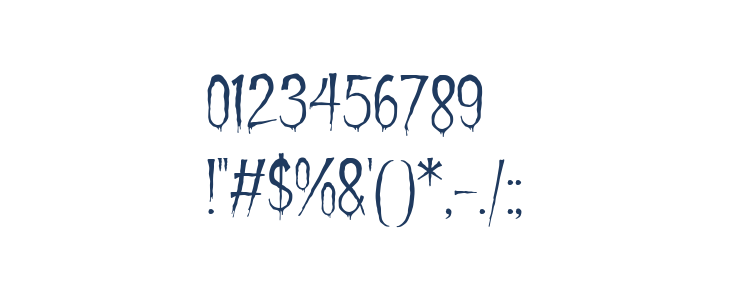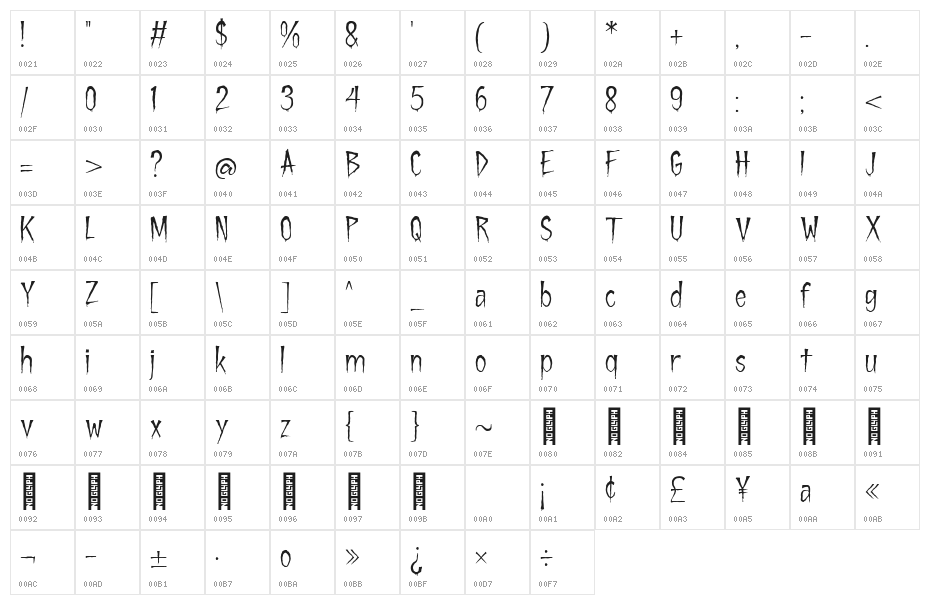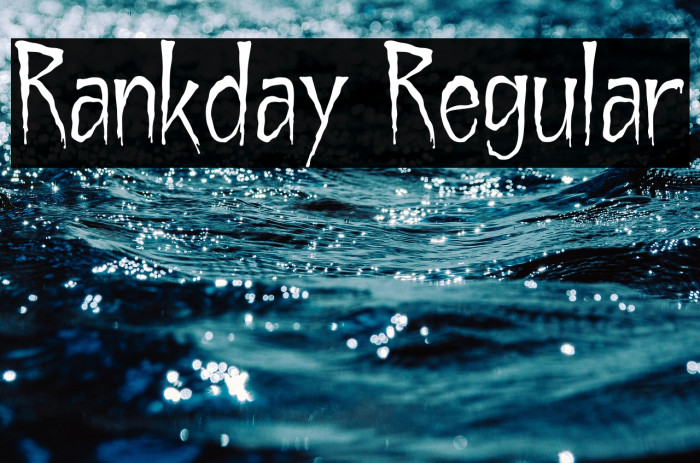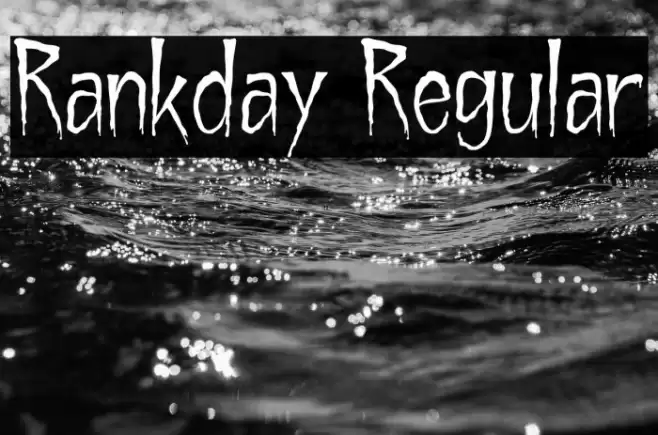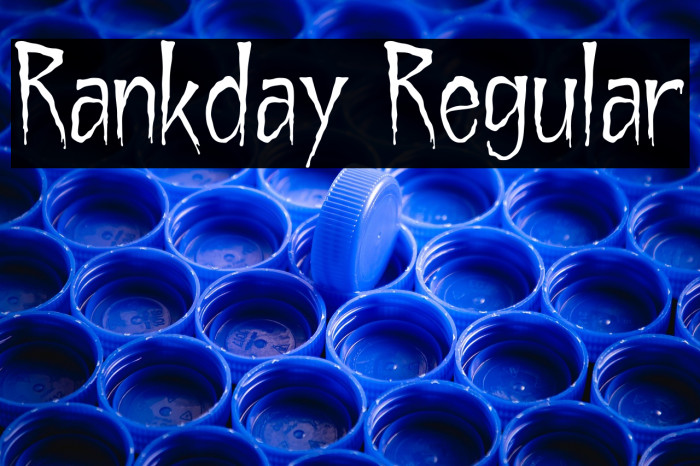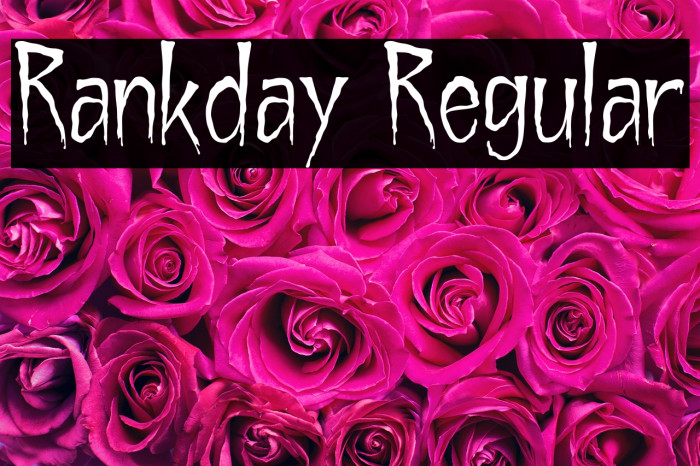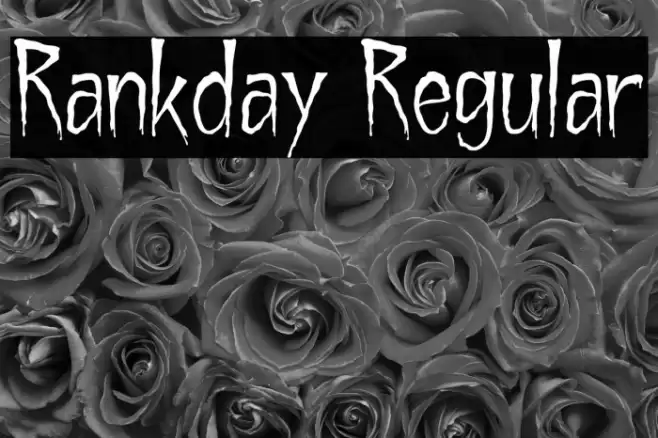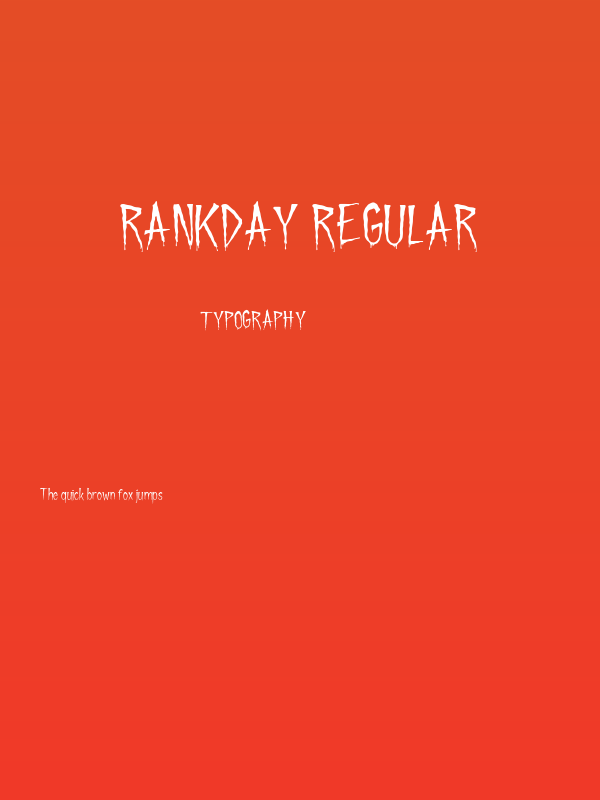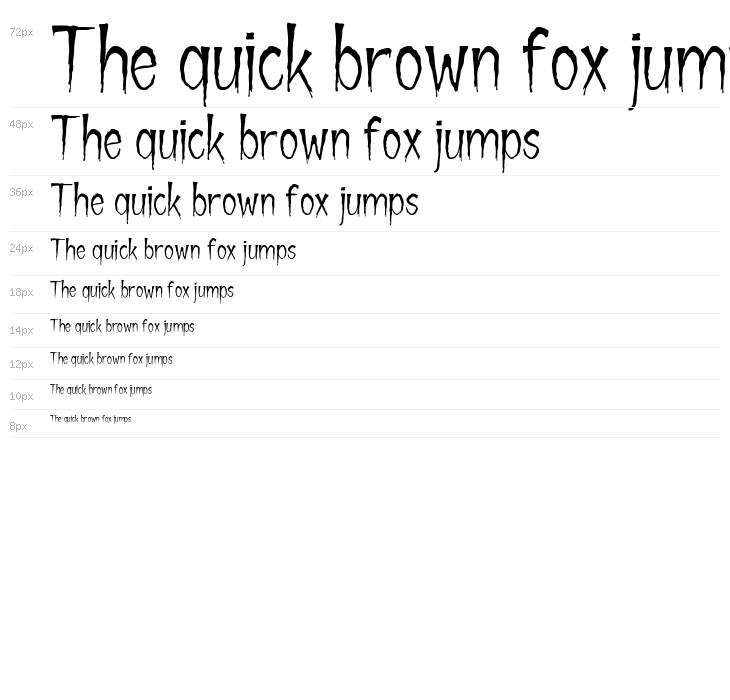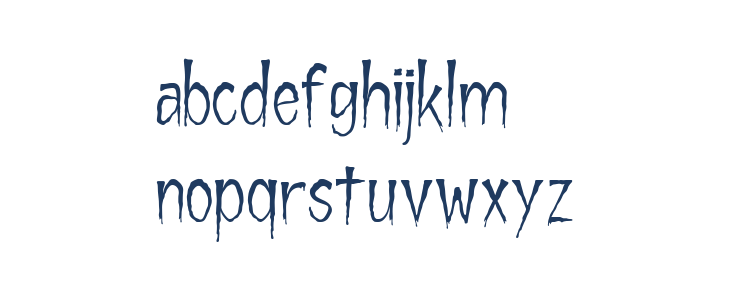
Rankday Regular Font
Rankday Regular Description
This font features a unique, edgy design with sharp, irregular edges that give it a slightly eerie and dramatic appearance. The characters are tall and narrow, with a hand-drawn aesthetic that adds a sense of individuality and creativity. The uppercase and lowercase letters maintain a consistent style, with elongated vertical strokes and pointed terminals. Numbers and special characters follow the same design principles, ensuring a cohesive look across all glyphs. This font's distinctive style makes it suitable for projects that require a bold and unconventional look.
| Proposed Projects | Ideal for horror-themed posters, Halloween invitations, edgy branding, and creative art projects. |